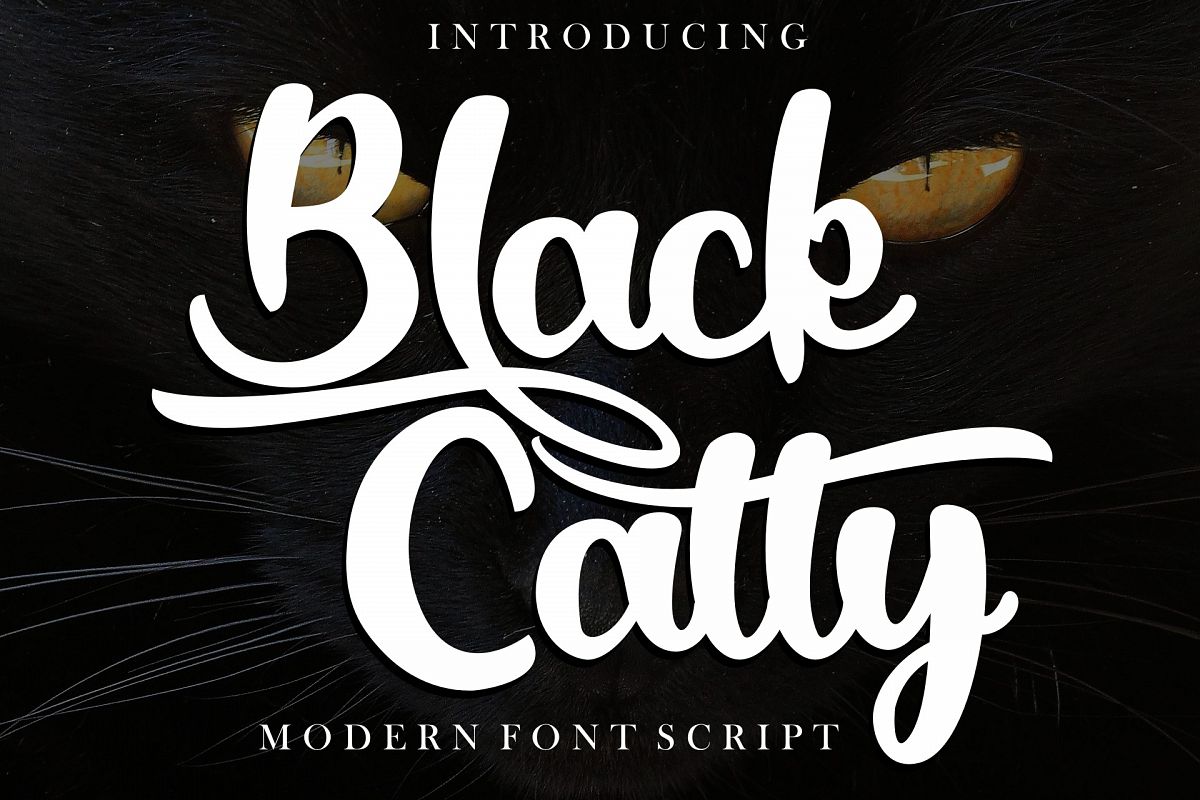
Black Catty script
Black Cutty
Black catty is a font that is designed for commercial purposes such as, covers, films, logos, business cards, t shirts, weddings, and many more